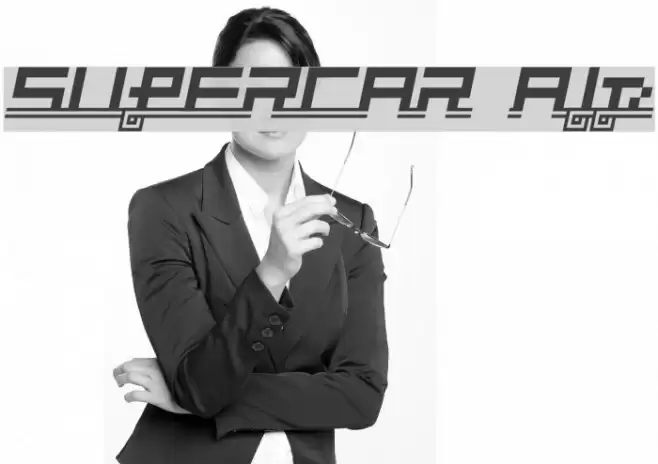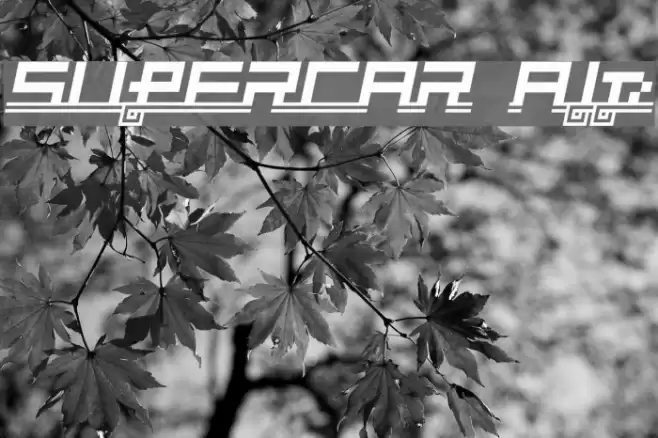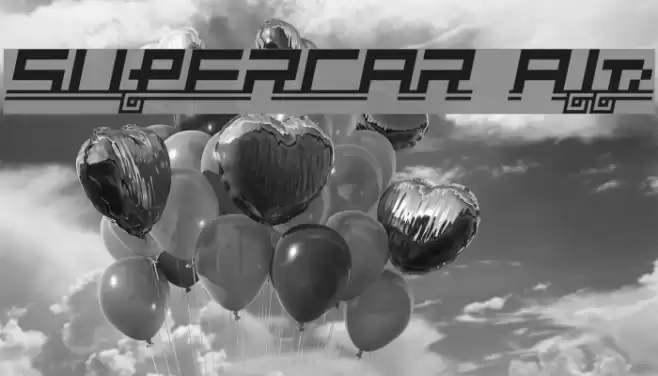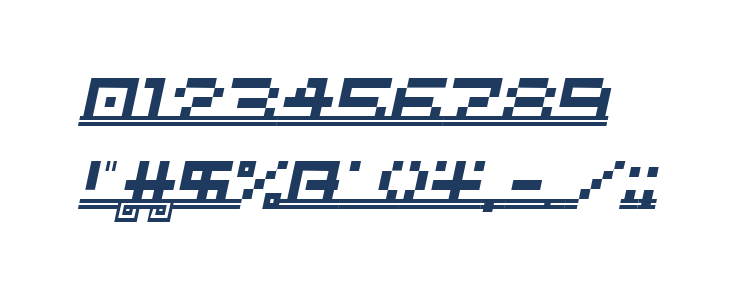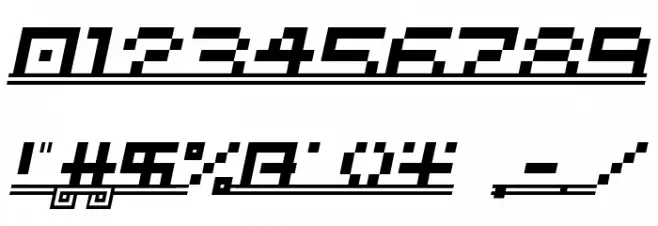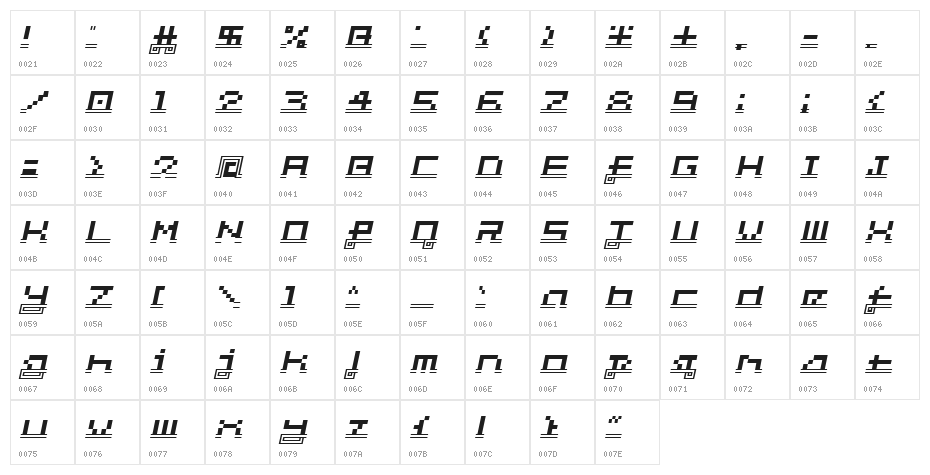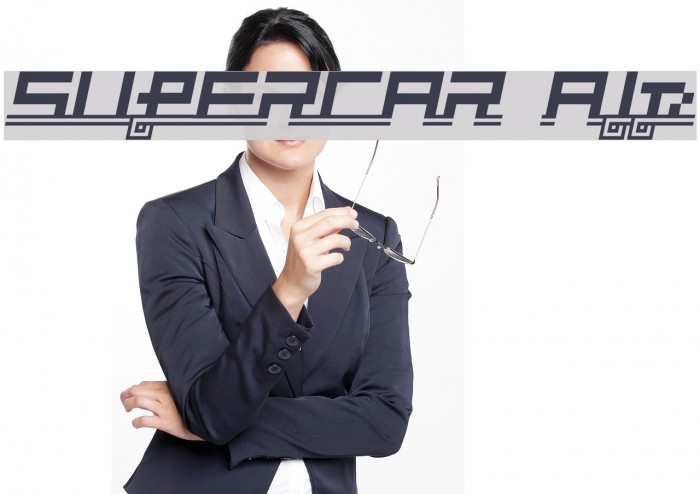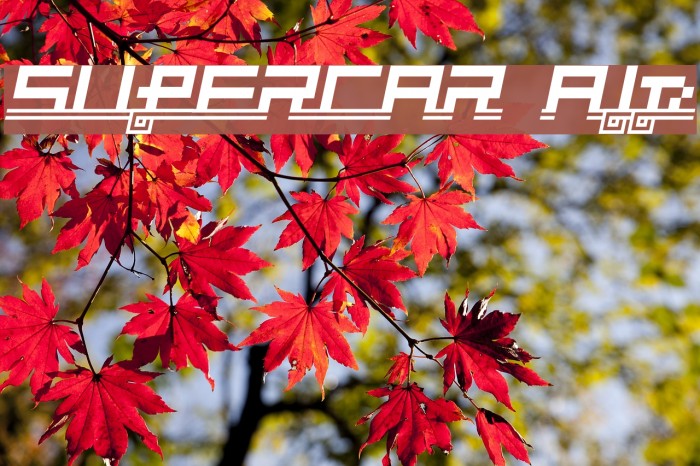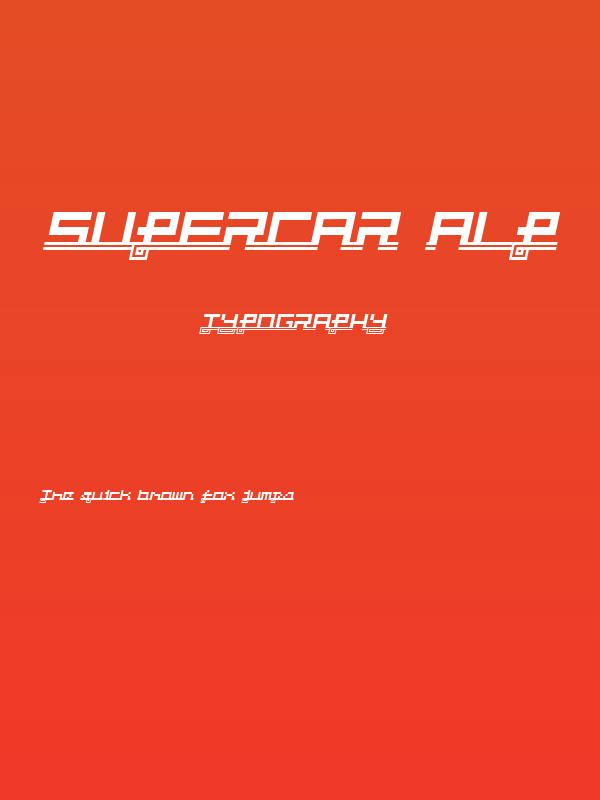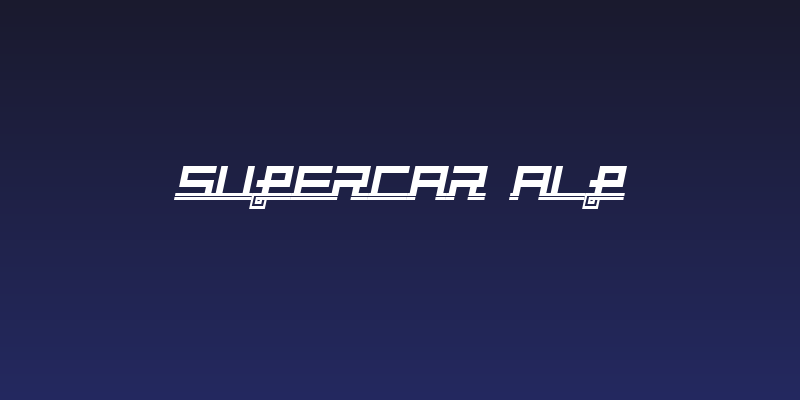
SUPERCAR Alp Font
SUPERCAR Alp Description
This font features a futuristic and geometric design, characterized by sharp angles and a consistent alignment along a horizontal baseline. Each character is uniquely stylized with a digital, pixel-like appearance, giving it a modern and tech-inspired look. The uppercase and lowercase letters maintain a uniform height, enhancing the cohesive aesthetic. The numerals and special characters follow the same design principles, ensuring a seamless integration across all elements. The font's distinct style is further accentuated by its bold lines and minimalistic approach, making it ideal for projects that require a contemporary and edgy feel.
A futuristic, geometric font with a digital, pixel-like design from Uncategorized fonts.
- Proposed Projects: Ideal for tech-related branding, video game graphics, and modern digital interfaces.
- Use Case: Headlines, Logos, Digital Interfaces